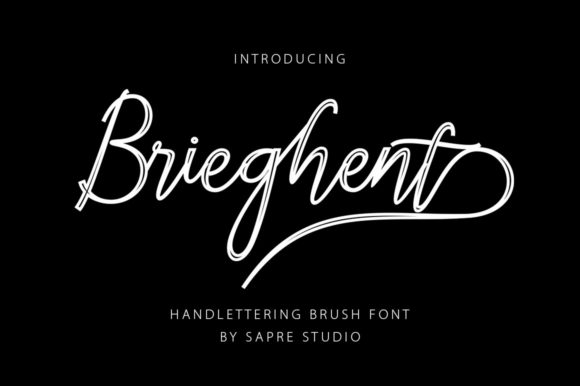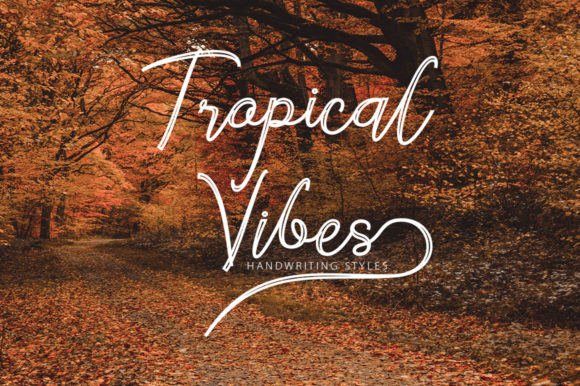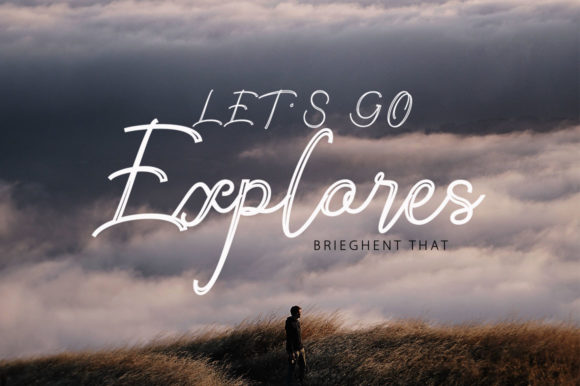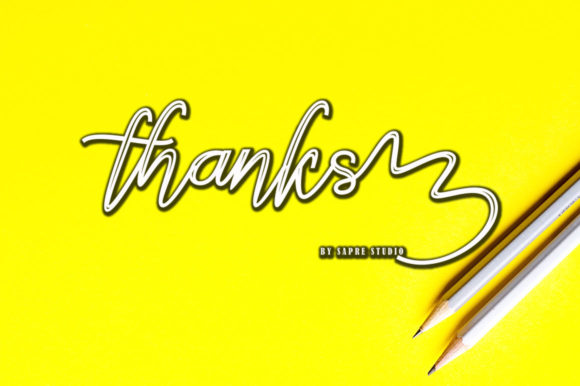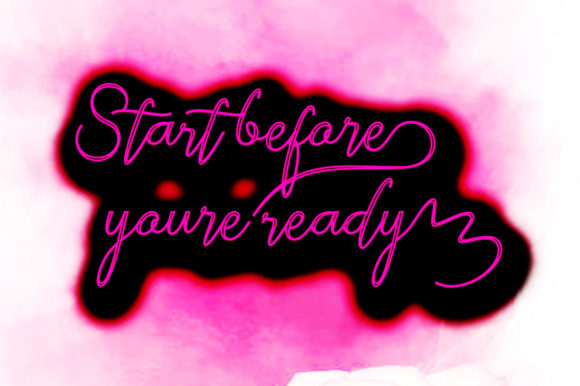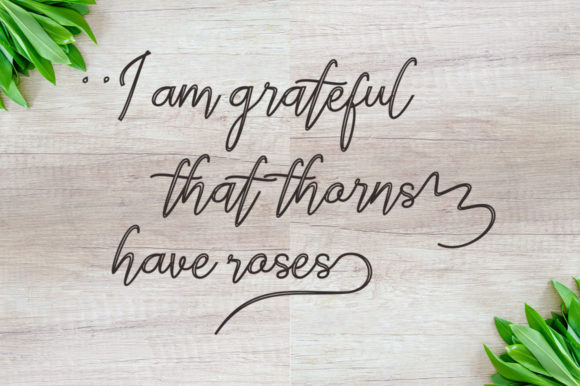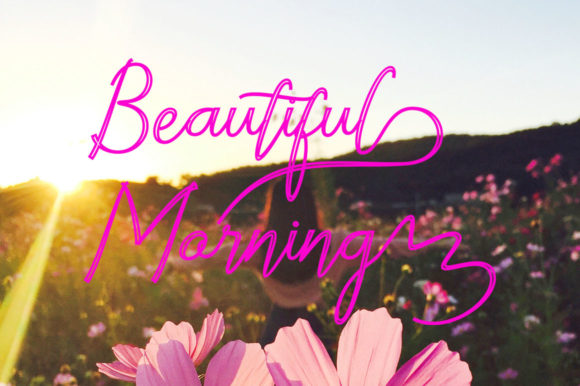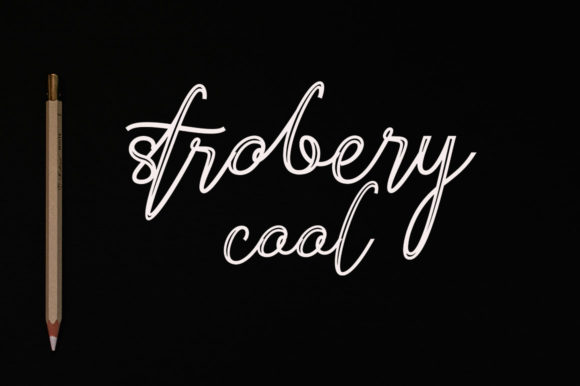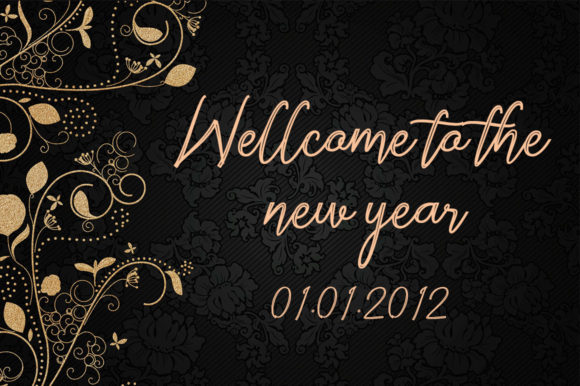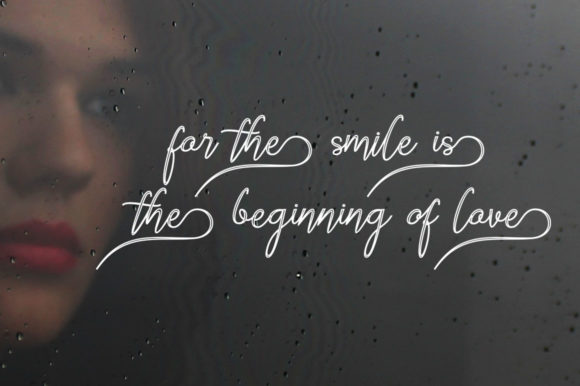
Brieghent Font
About Brieghent Font
The Brieghent is an elegant handwritten font. It’s perfect for wedding invitations, thank you cards, quotes, and every other design which needs a luxurious typeface.